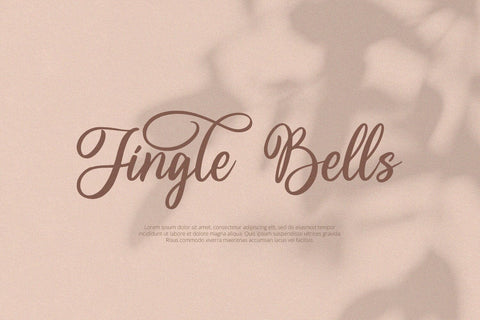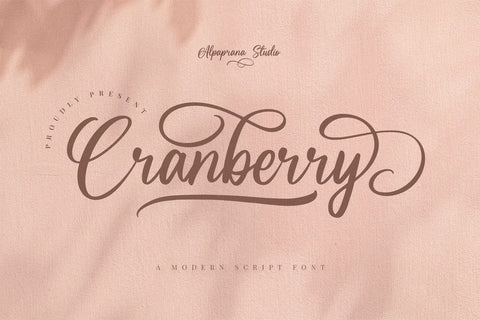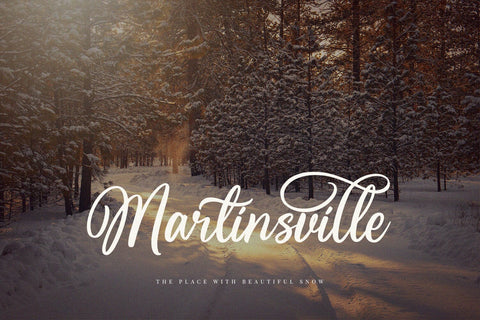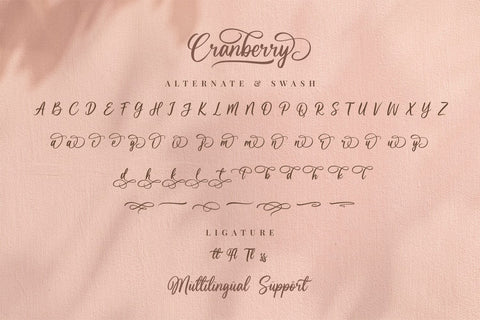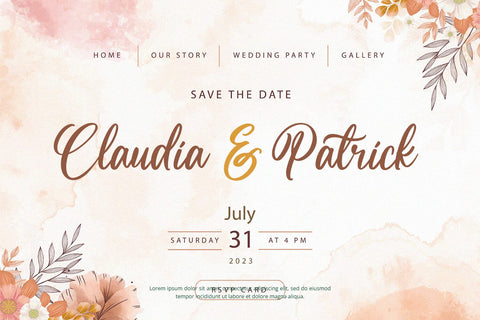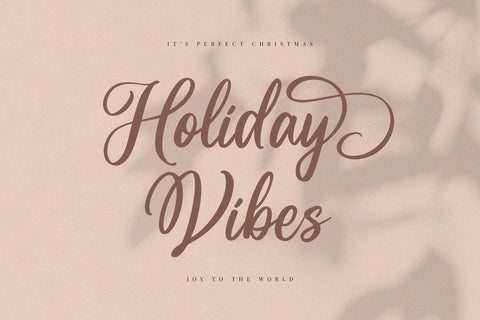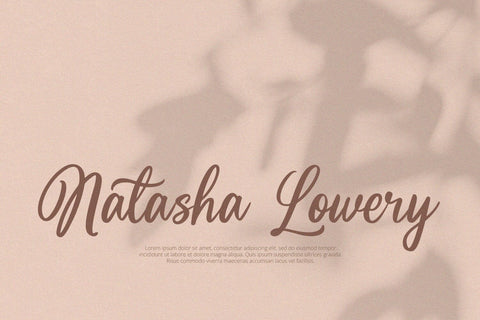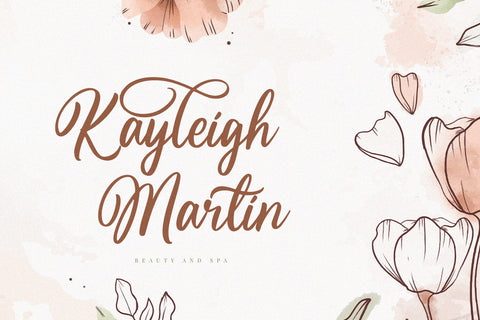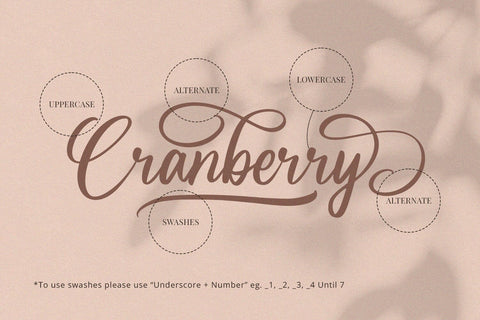
Cranberry - Modern Script Font
Cranberry is a modern script font with elegant and unique style. It will be perfectly used for Branding, Logo Design, Lettering, Logotype, Clothing, Poster, magazine, packaging, posters, shopping bags, t-shirts, book covers, photography, special events and other design project.